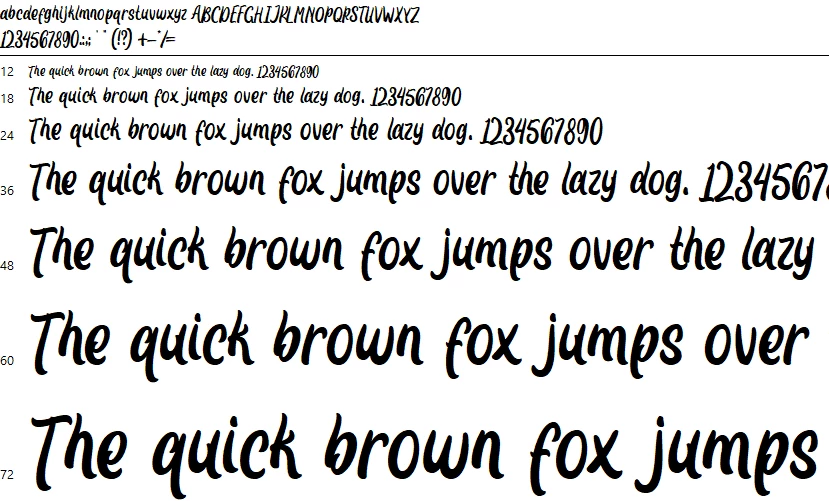
We’re going to share Freak Chicken Font, which is a Script and Brush typeface. The font offers attractive shapes and character alternates, which is a benefit of this font. The typeface has a unique style and includes all of the features of paid fonts. The typeface comes in ttf and otf formats, making it simple to install on Windows, Mac, and other operating systems. This incredible brushed typeface is a fun script font with intriguing features. The font is designed and shared by 7NTypes.
Banners, infographics, public transportation navigation, newspapers, and catalogs all benefit from the font. In my opinion, the typeface is mostly suitable for use in apps and GIFs. The typeface has an elegance about it that makes any endeavor go smoothly.